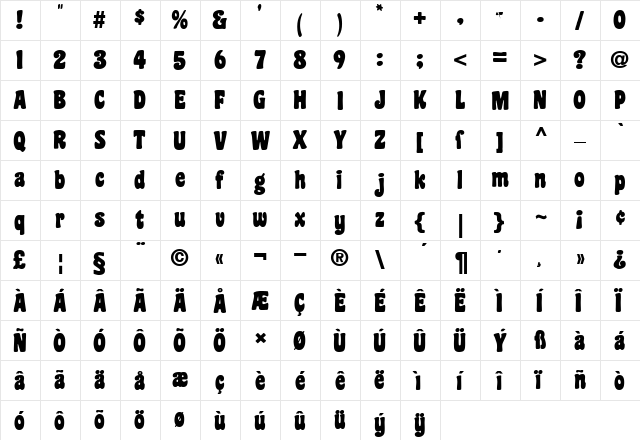
Coaster Black Font Preview
Coaster Black
Coaster Black Font Details
Design Context for Coaster Typeface
Coaster is a composed and adaptable typeface that performs quietly and consistently across a wide range of design contexts.